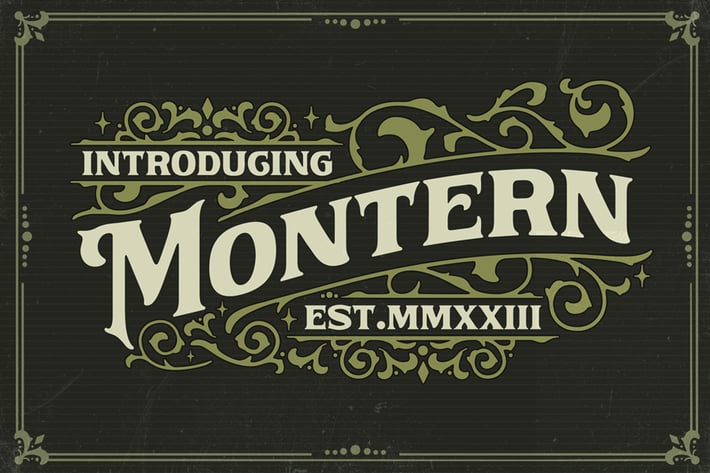
Montern Vintage Font
Montern is a Vintage typeface font, it will add an old-time charm to any design project. This collection of font is perfect for everything your project with vintage, retro, wild or organic style. It was made with the intention of being used for product Logo like a Pomade, Coffee, Barber shop or packaging label. It’s great also for Branding, Logo designs, Lettering, Logotype, Craft, Posters and much more. Comes with a full Uppercase, Lowercase, Numbers, Punctuation and standard Multilingual support it’s going to be a very usable addition to your project. We recommend using Adobe Illustrator or Photoshop. If you using another software, you can use the Font Book on your Mac or the Character Map on your windows to see and access alternate character like swash. Use it for any crafting project that requires a classic appearance!
Numbers & Punctuation
Alternate Character Ornament
Numbers & Punctuation
Alternate Character Ornament